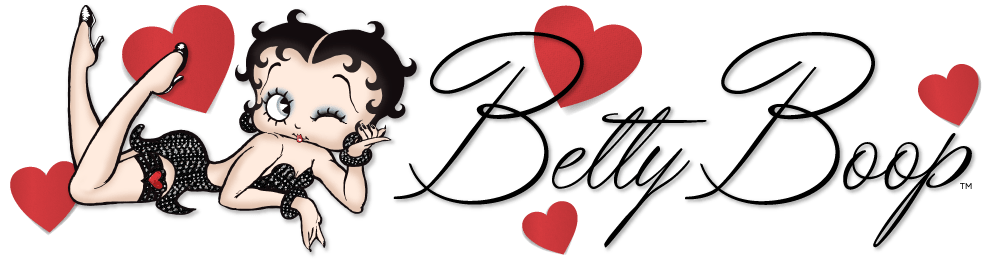
Betty Boop Font Name. Bloop is a versatile bold new cartoon font that is great for the web, video, print headlines or product logos. It is a hot, contemporary, very readable design with language character function.
Grim Natwick Betty Boop Regular Font.
She has also been featured in comic strips. Betty is nameless in dizzy dishes, mysterious mose & in accordion joe (lost cartoon) in which. Hello betty font, romantic font, calligraphy font, modern calligraphy, heart fonts, wedding font, love font, script font, cricut font.